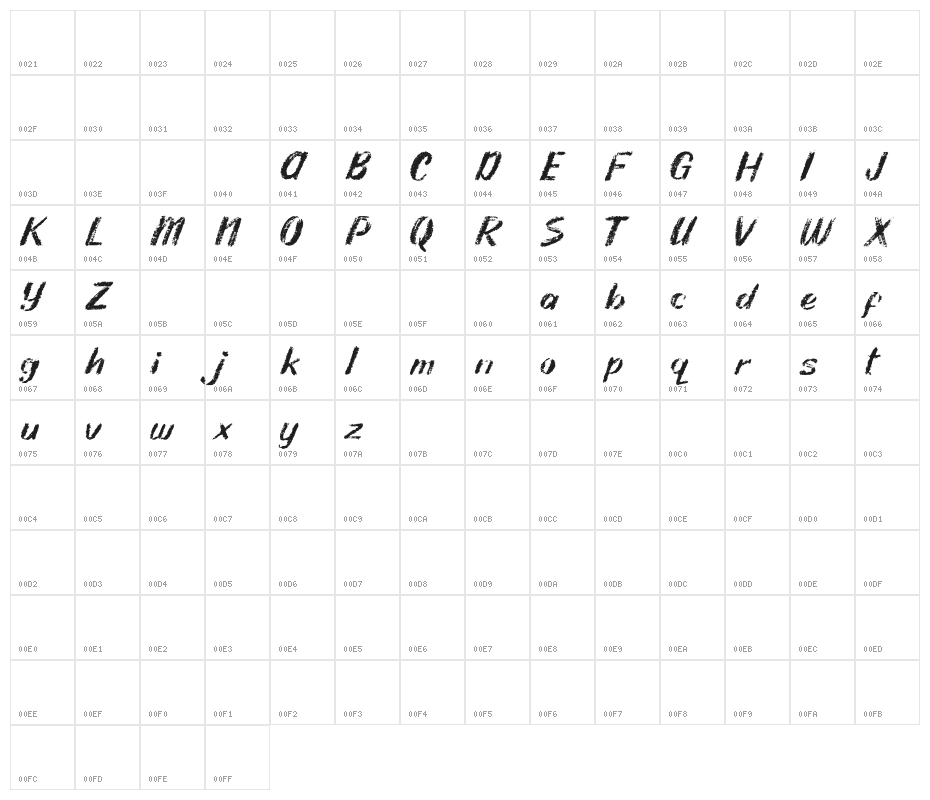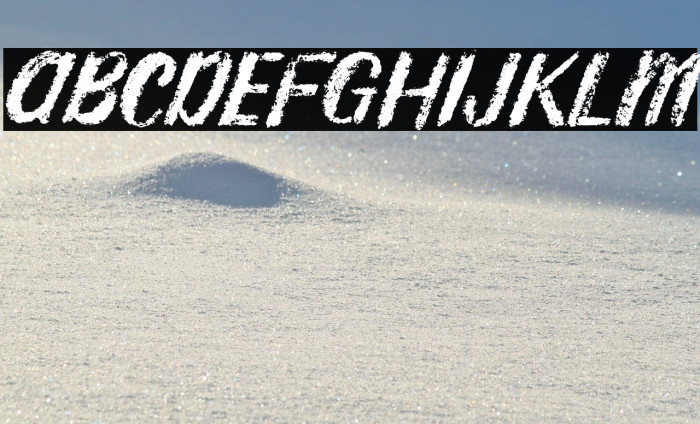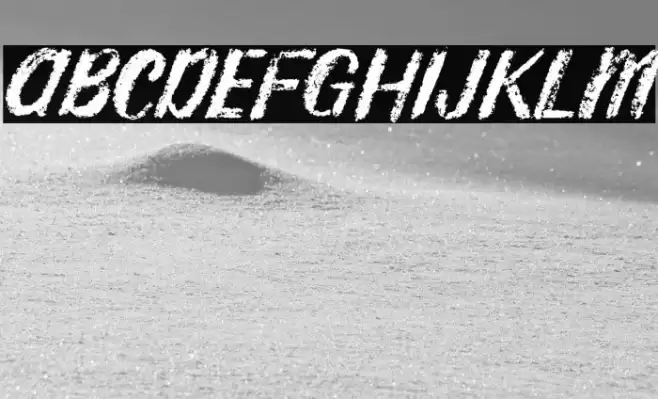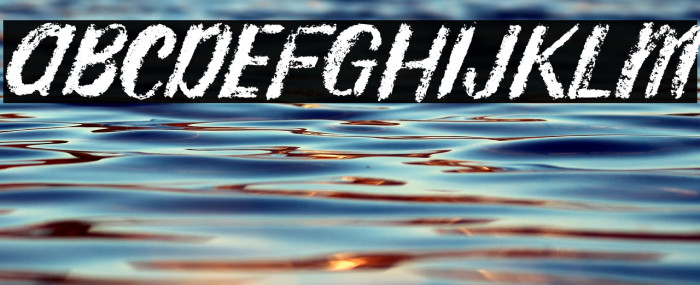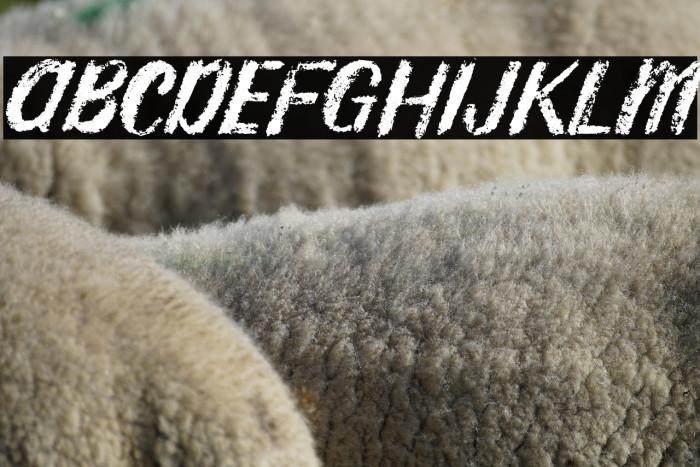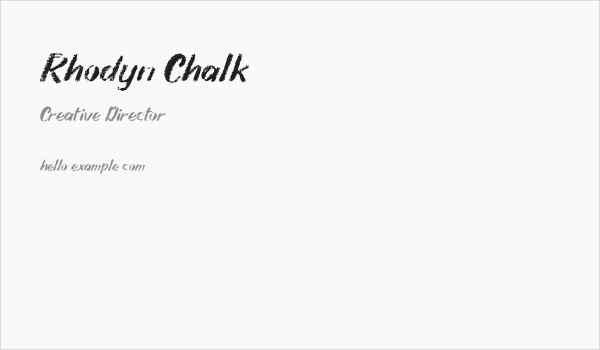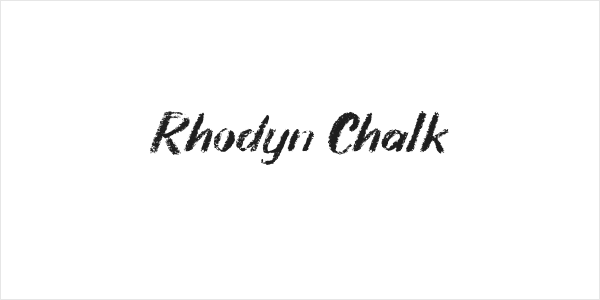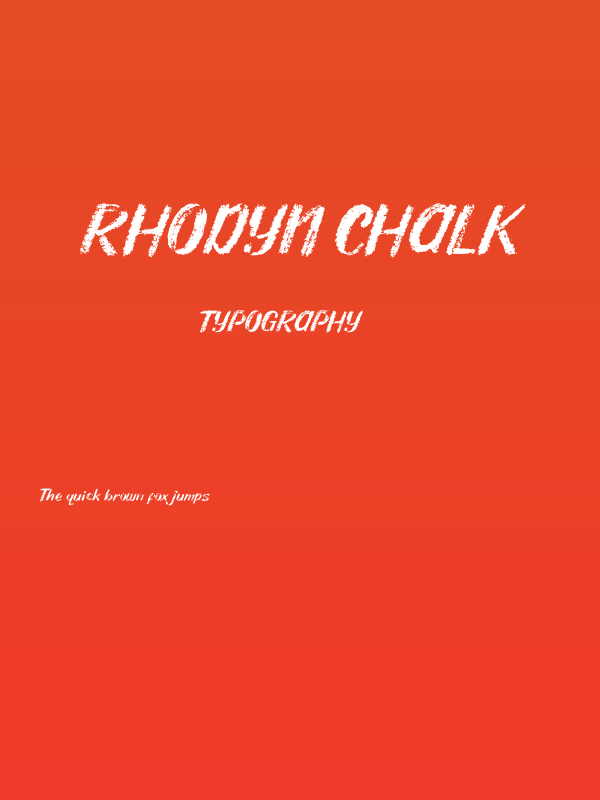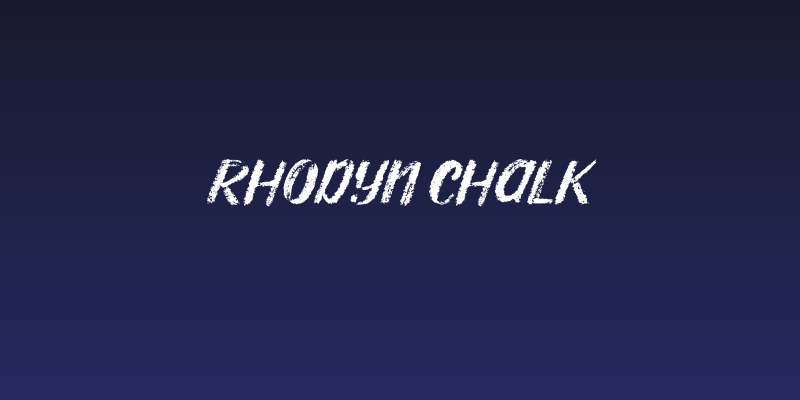
Rhodyn Chalk Font
Rhodyn Chalk Description
This font features a textured, chalk-like appearance, reminiscent of handwriting on a chalkboard. The letters have a dynamic and energetic style, with strokes that vary in thickness, creating a sense of movement and spontaneity. The uppercase and lowercase letters maintain a consistent style, with rounded edges and a slightly italicized slant, enhancing the handwritten feel. The numbers and special characters are crafted with the same attention to detail, ensuring a cohesive look across all elements. This font is perfect for projects that require a playful, informal touch, such as children's book covers, educational materials, or creative event invitations.
Overall StylePlayful, Informal
Use CaseHeadlines, Creative projects, Informal branding
Proposed ProjectsIdeal for children's books, educational materials, creative invitations, and playful branding.